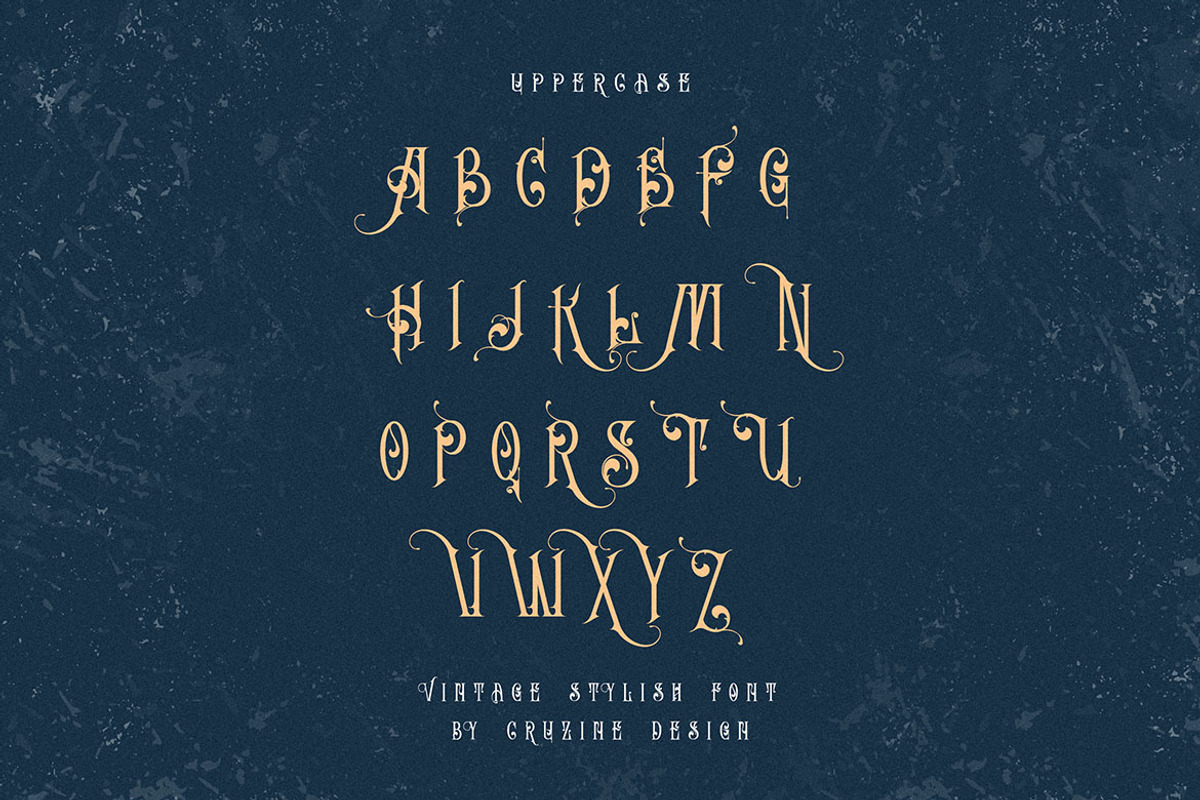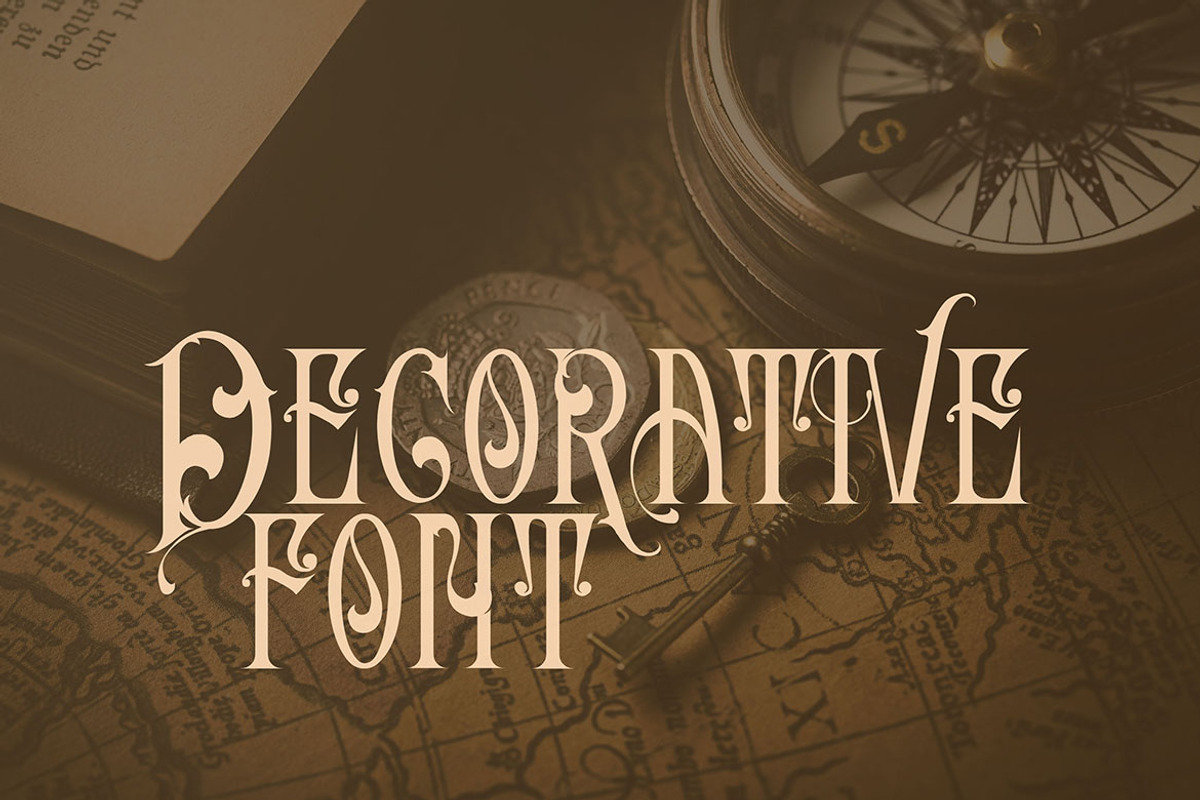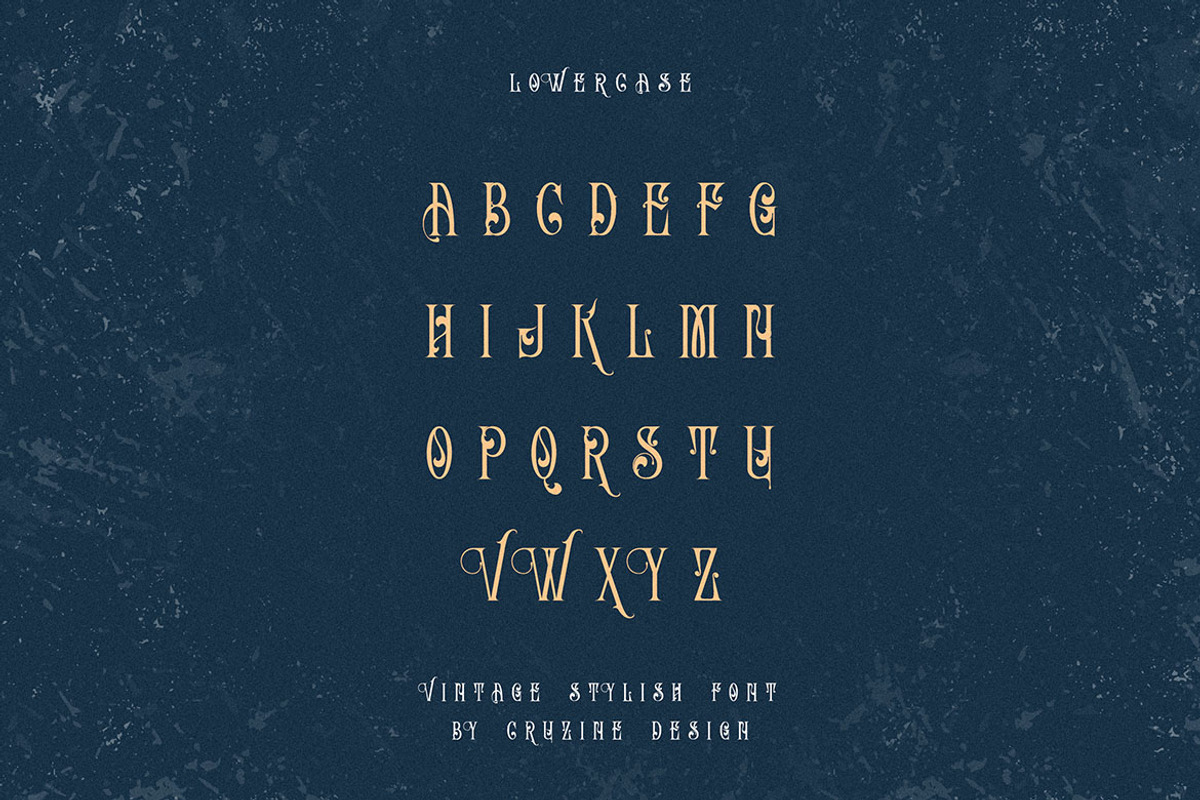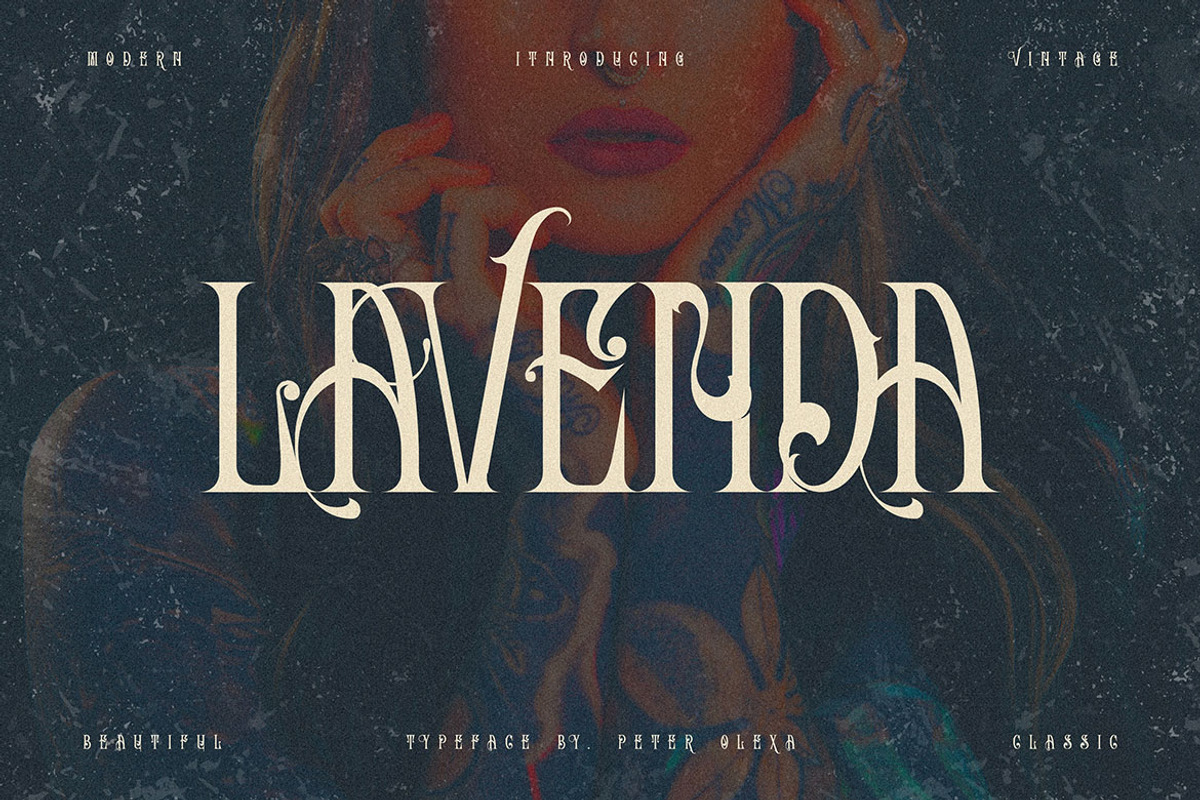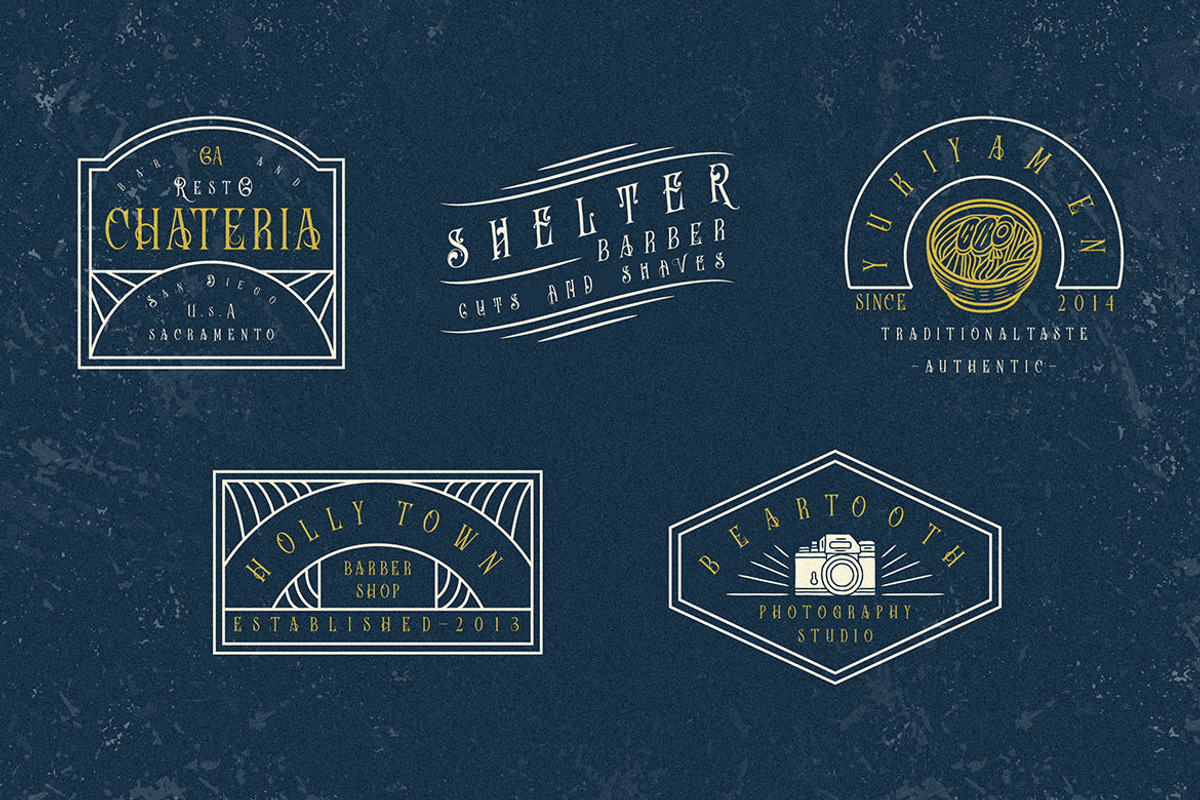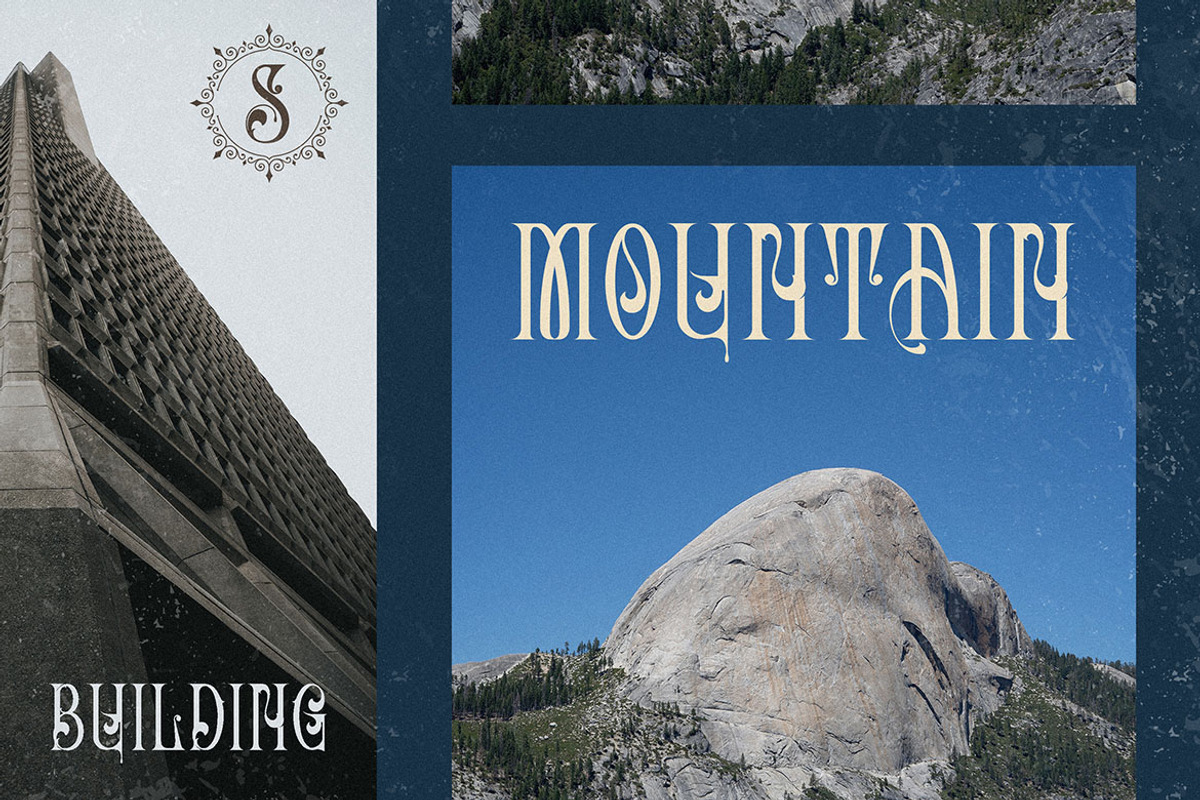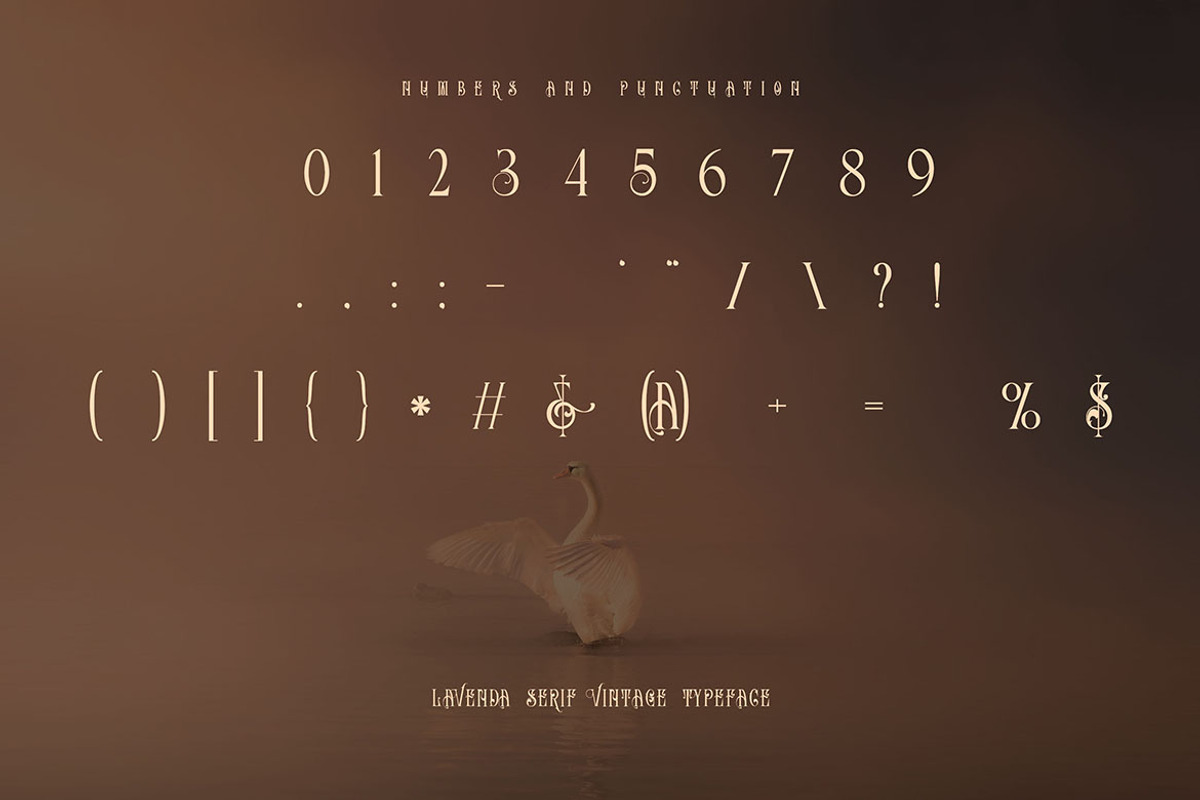
Lavenda - Vintage Ornamental Font
Unique vintage & ornamental, decorative style custom serif font. Great for your new logo or branding project.
- Great for retro or vintage style branding projects